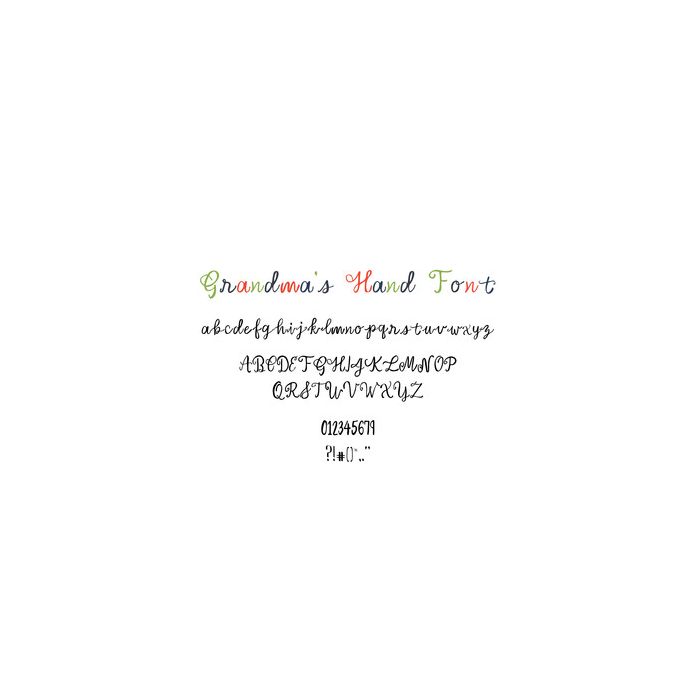
This hand-drawn font contains both the upper and lowercase alphabet, numbers, and 11 special characters such as exclamation point, question mark, etc. 73 characters in all.